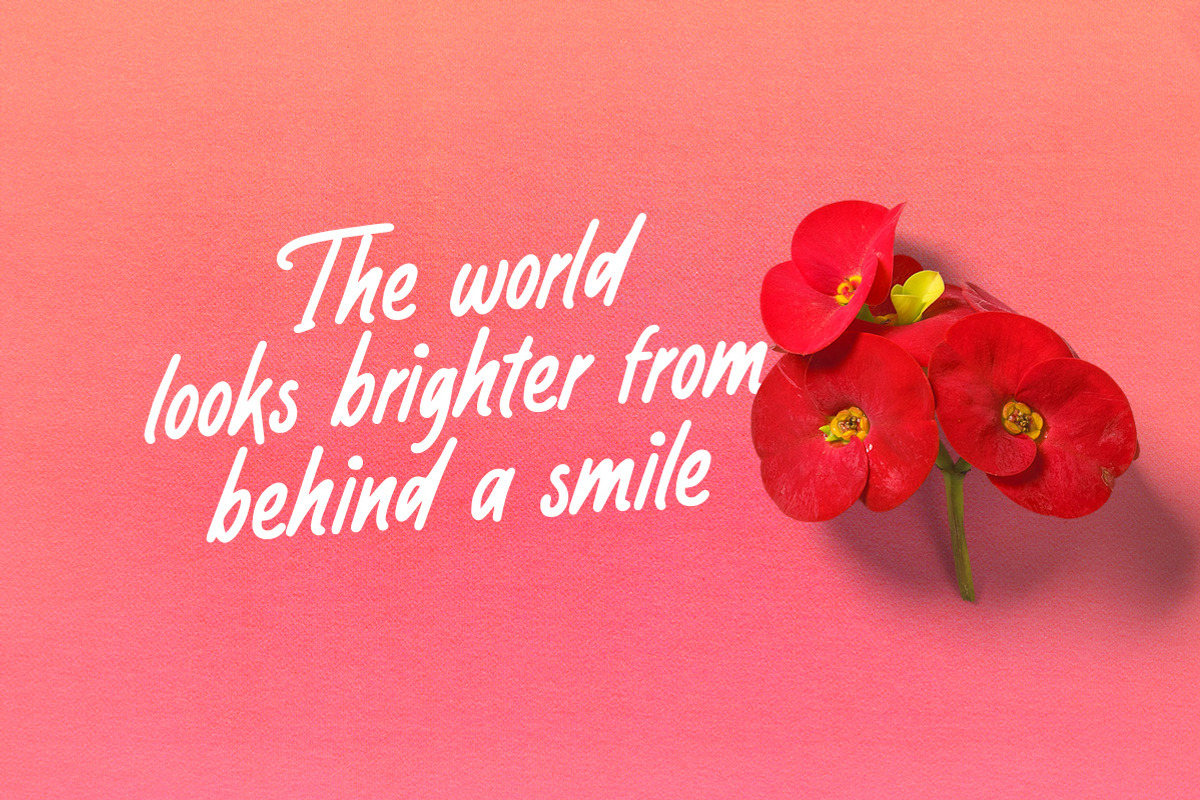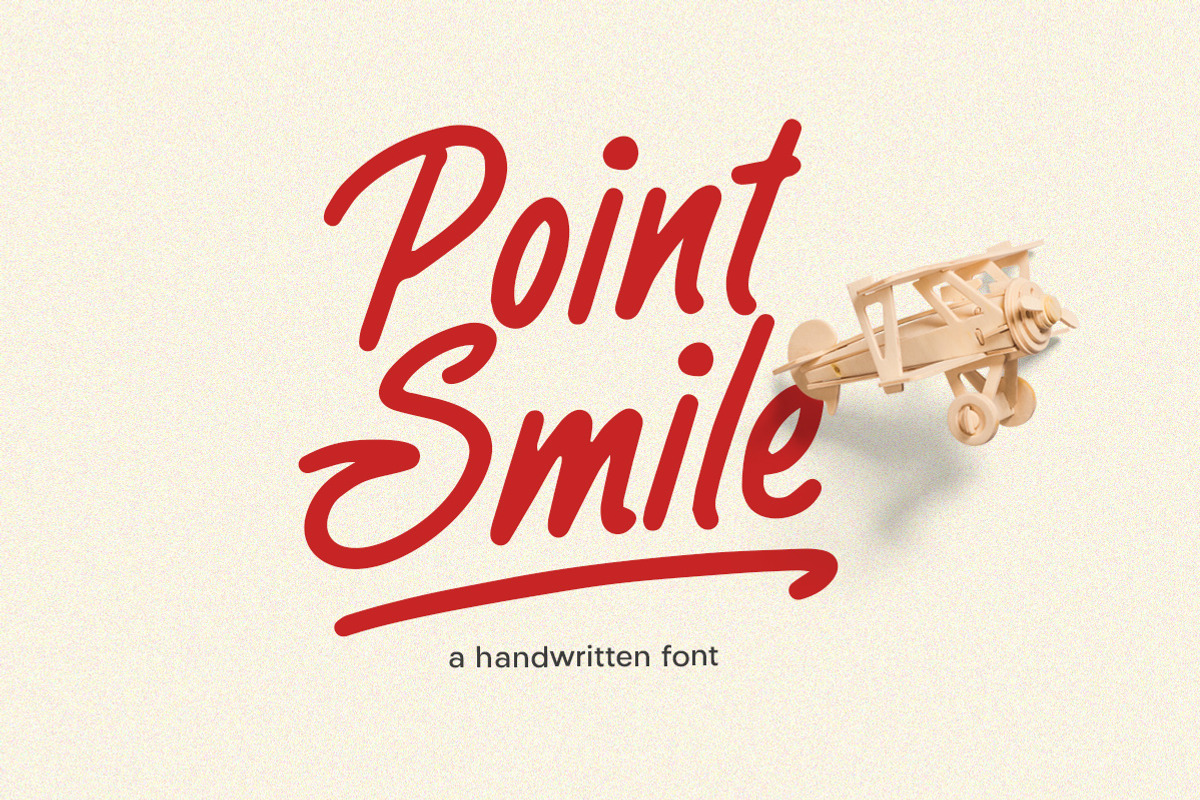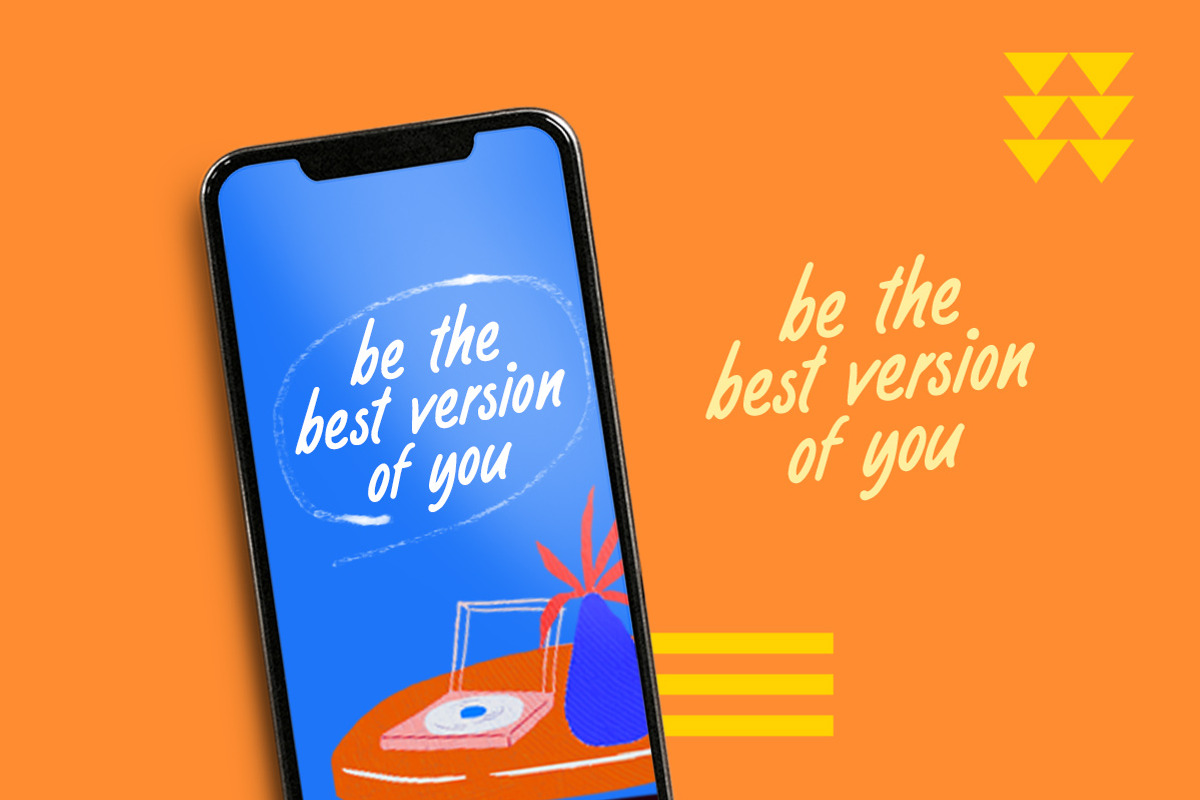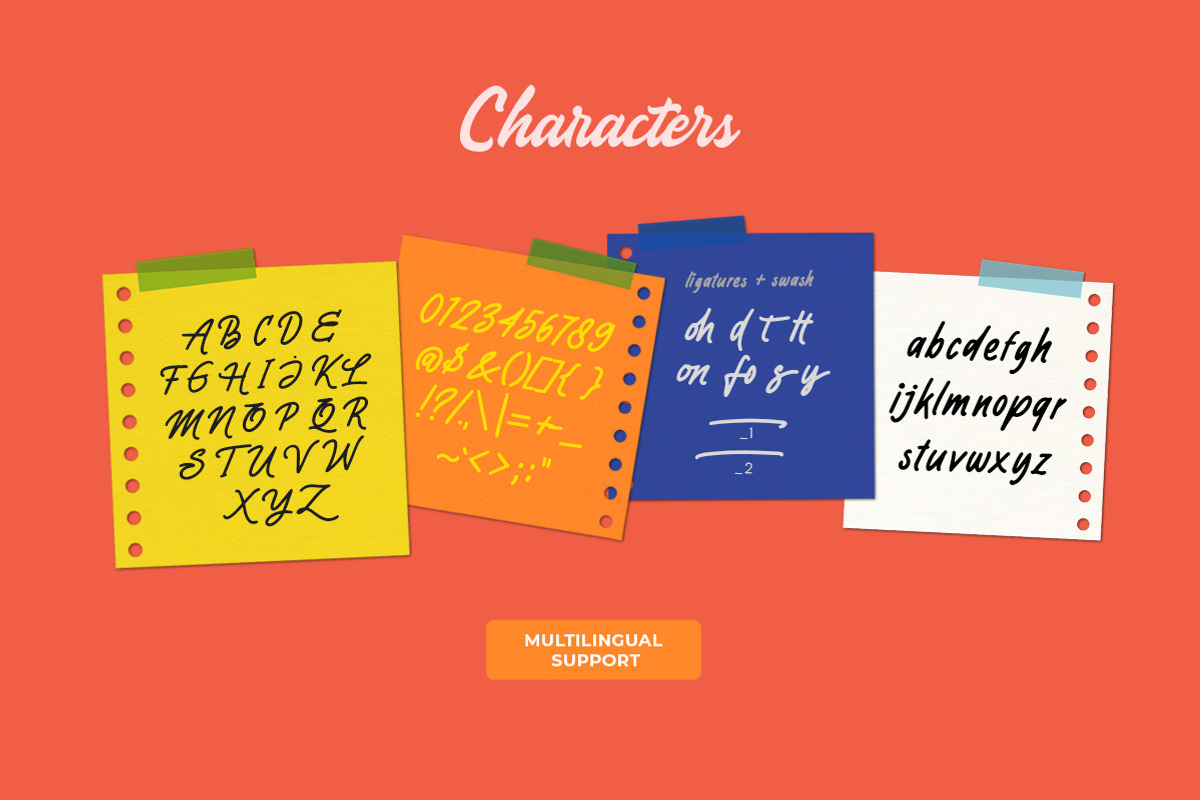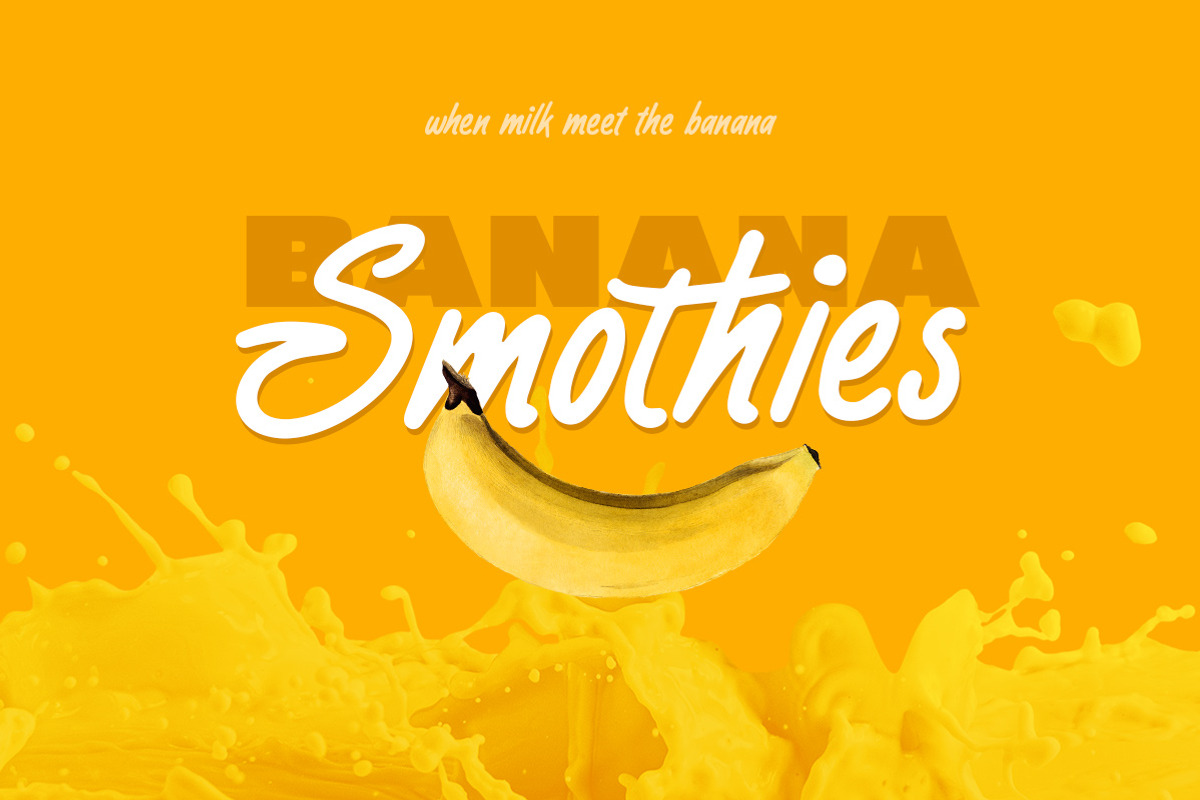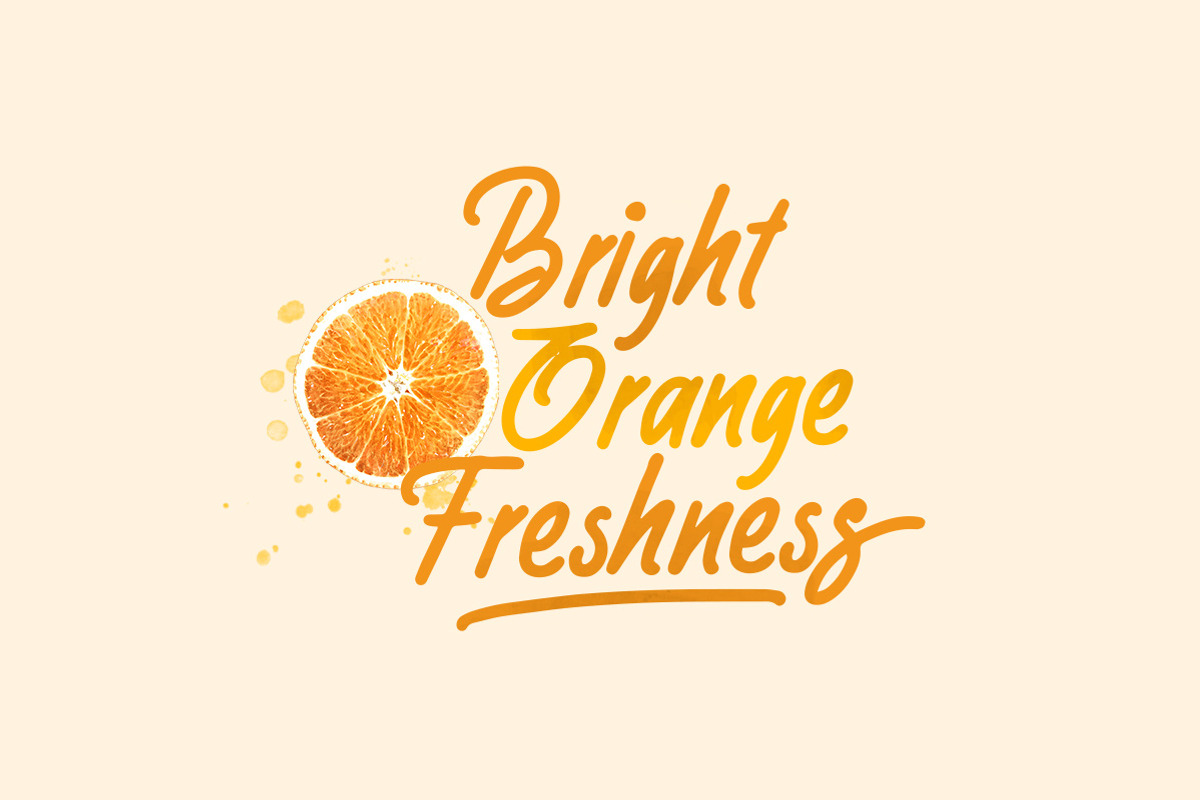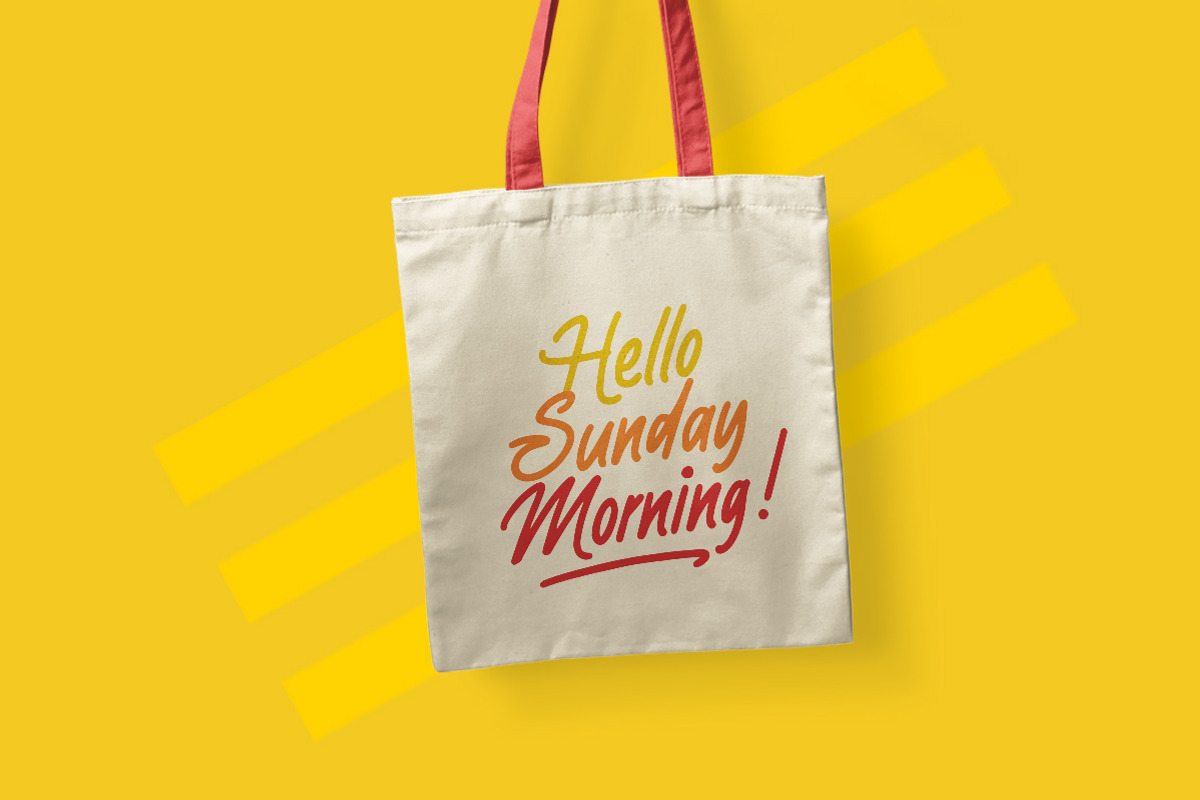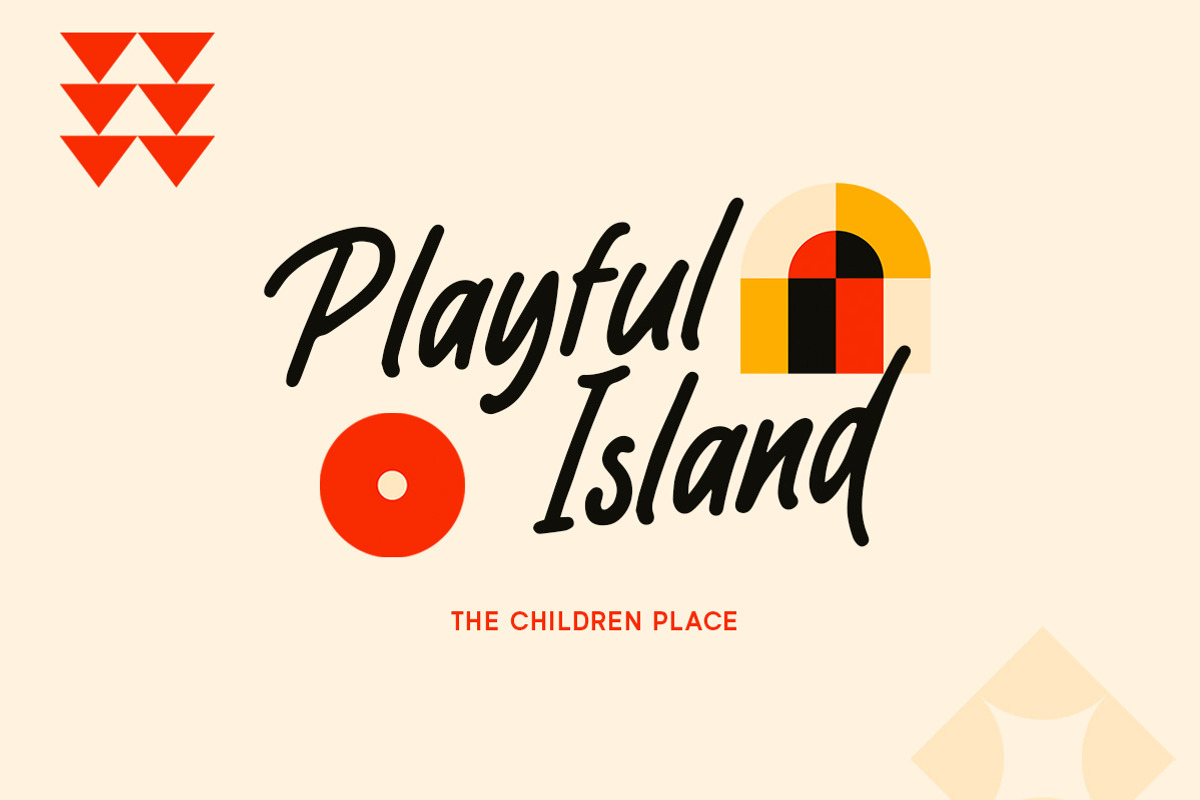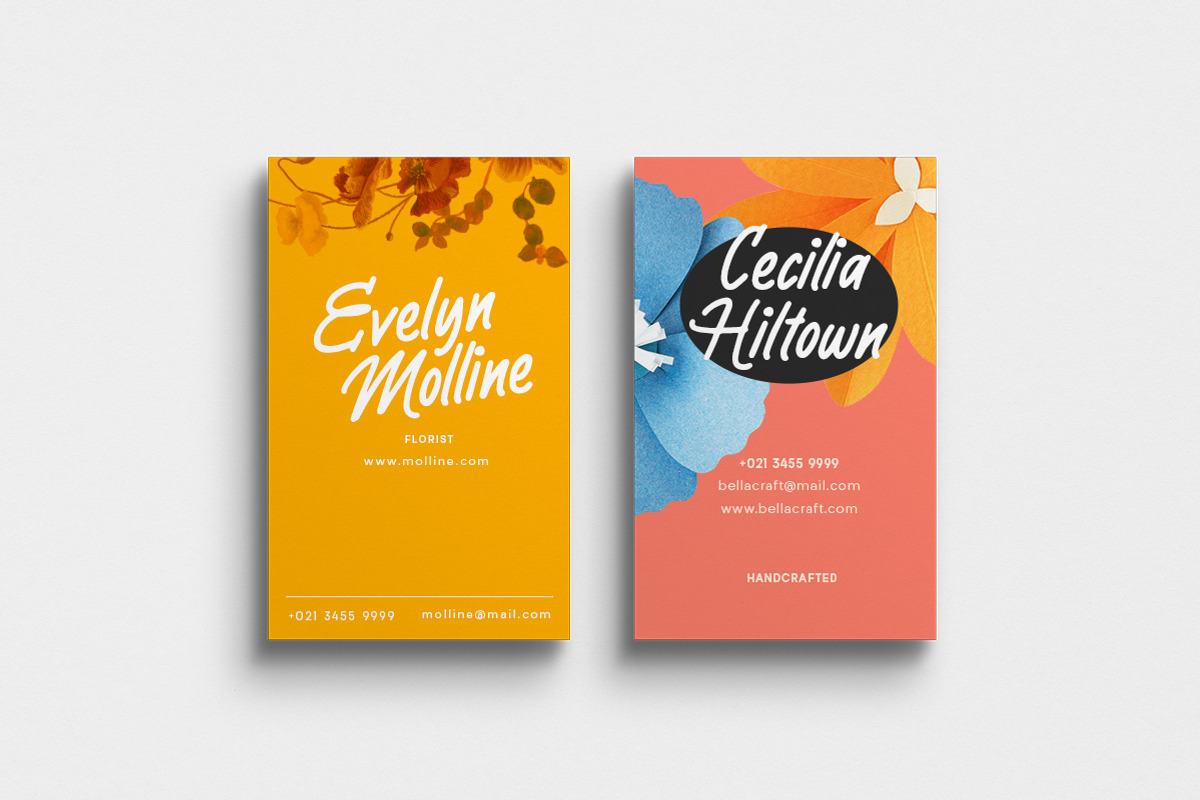
Point Smile - A Handwritten Font
Introducing, Ponit Smile font! Casual and quote font for your projects. This typeface has handmade looks which is perfectly made to be applied especially in headline, logotype, apparel, invitation, branding, packaging, wedding card, advertising etc.
- alternates and ligatures